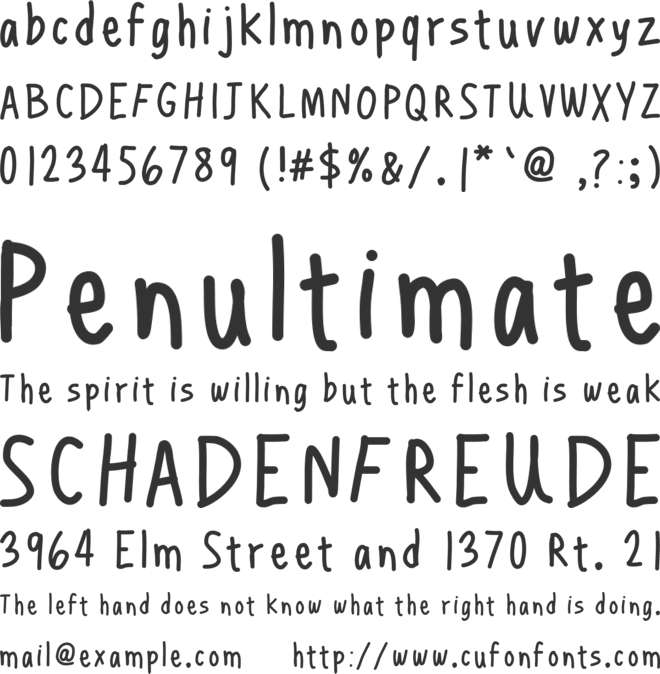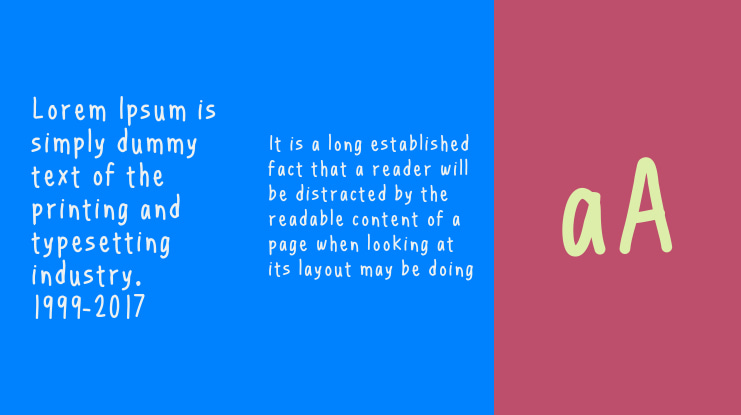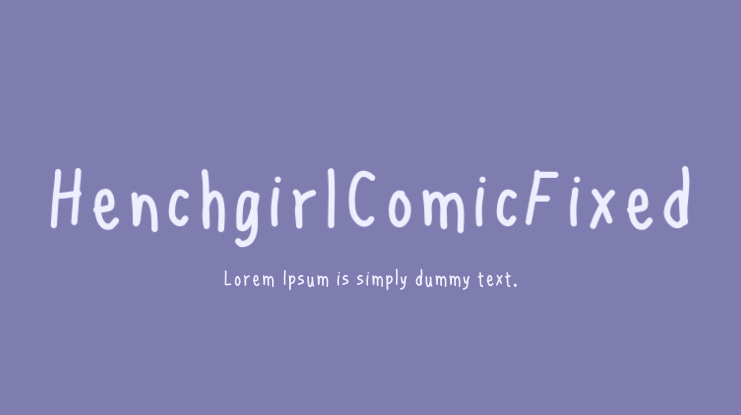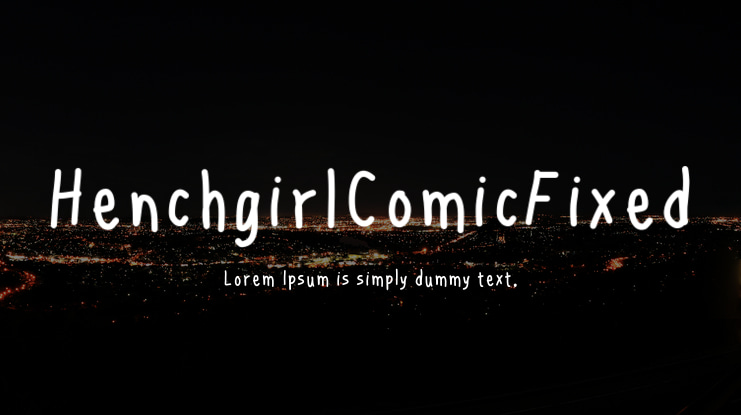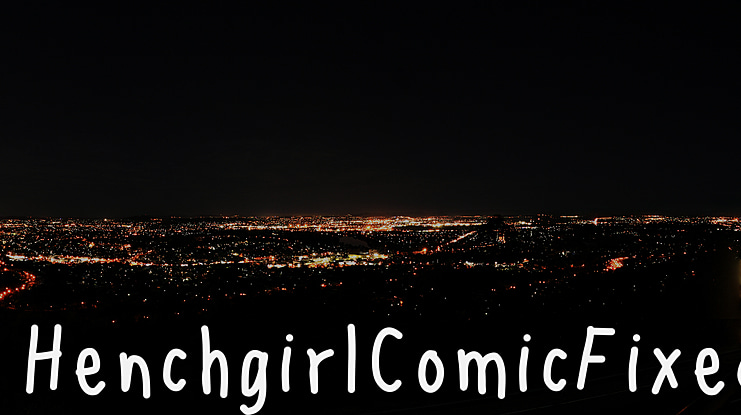
HenchgirlComicFixed Font
this is the font I use in my comic, Henchgirl! It's good for comic lettering. I tend to have the kerning (space between the letters) at -40 or -50, I think it looks best that way.